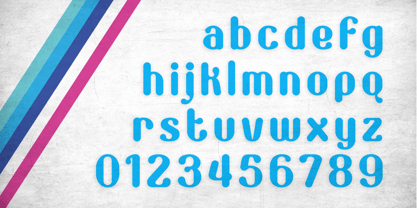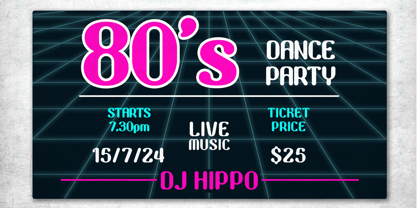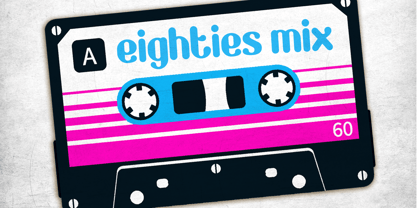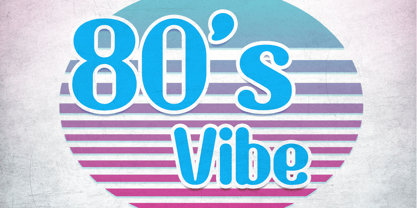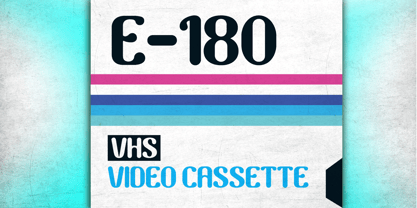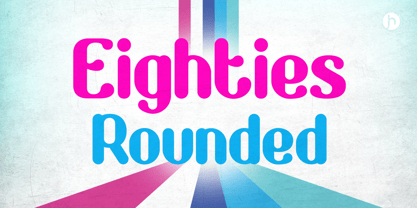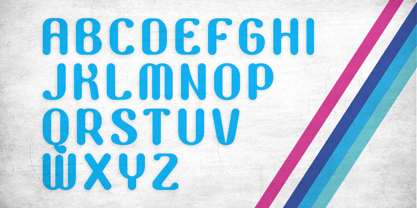
Eighties Rounded
by Joe Hewitt Design
The Eighties Rounded Font Family was designed by Joe Hewitt and published by Joe Hewitt Design. Eighties Rounded contains 1 styles. More about this family
Take a nostalgia trip going back 40 years with the Eighties Rounded typeface. The font is intended to be a blend of modern geometric and retro styling. I've always considered rounded fonts to be both clean and fun! I try to keep those attributes in mind when designing rounded typefaces and i hope it shows here.
Eighties Rounded works perfectly in many design projects including posters, boho themes, logos, social media, branding, greetings cards and much more. The smooth curves also work well for Cricut designs.